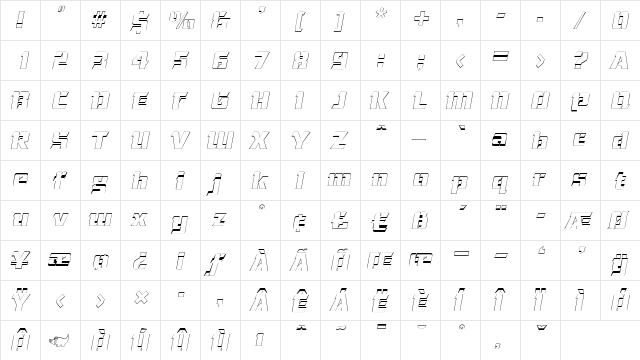
AndreaBeckerOutline Italic
Design Context for AndreaBeckerOutline Typeface
AndreaBeckerOutline brings ornamental detail and strong personality to headlines and identities, where visual impact matters more than quiet functionality. The slanted form adds forward momentum and visual energy.
Font Pairing: Pair with a clean neutral sans-serif for body copy to let AndreaBeckerOutline's character lead without overwhelming the composition.
Pro Tip: Treat AndreaBeckerOutline as the centrepiece of your typographic hierarchy. One strong heading set in a decorative face can carry an entire layout.